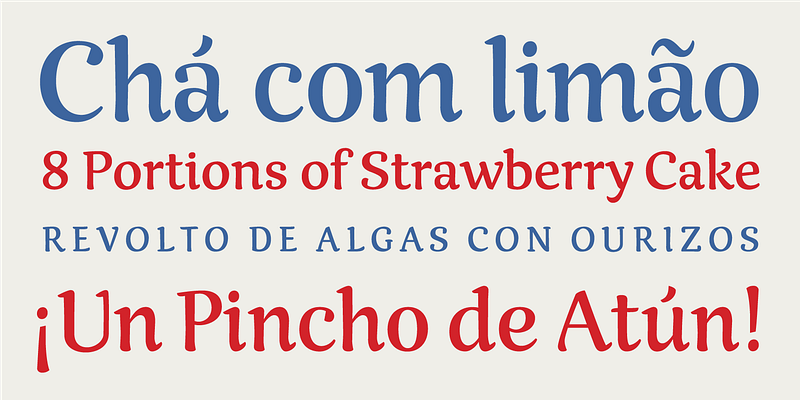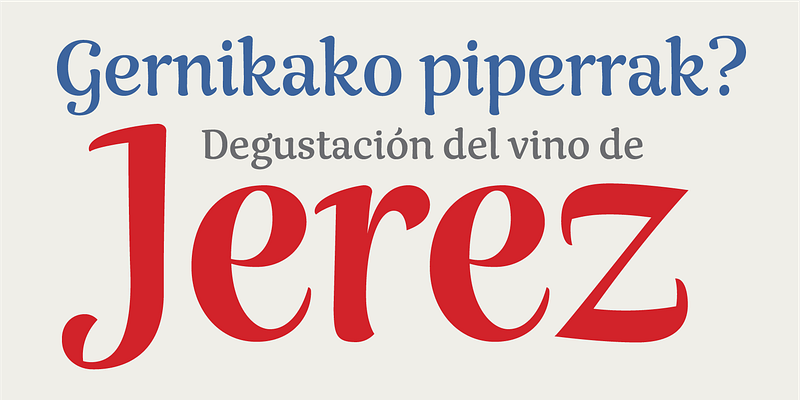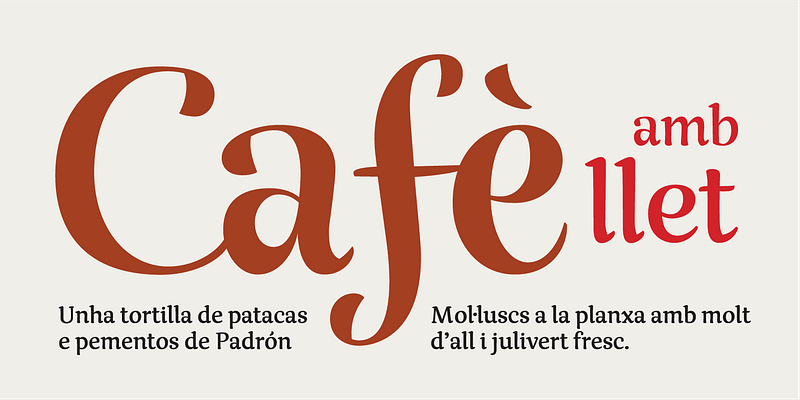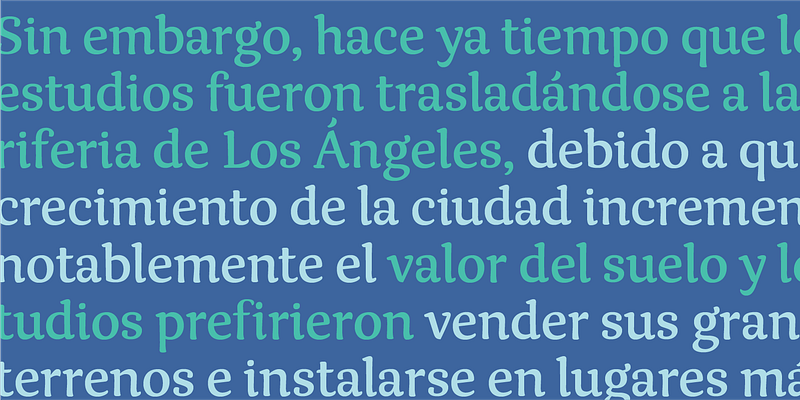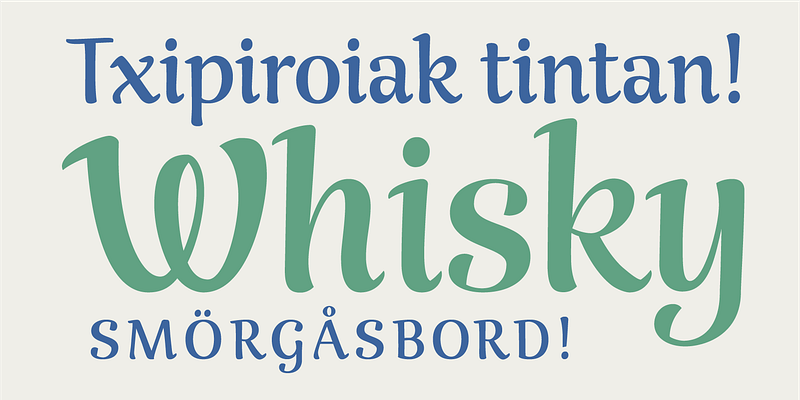
Laura Meseguer developed Rumba during her time at the KABK’s Type and Media program in The Hague in the early aughts. The family contains three fonts based on the same model, but with varying contrast, construction, and degrees of expressiveness. It comes with several alternate characters, special ligatures, and all of the glyphs required for languages based on the Latin alphabet. This makes Rumba a truly multilingual typeface family, suitable for myriad uses. The family consists of Rumba Small for short texts, Rumba Large for headlines, and Rumba Extra, which imparts a hand-lettered touch; Type-Ø-Tones 2006–2017